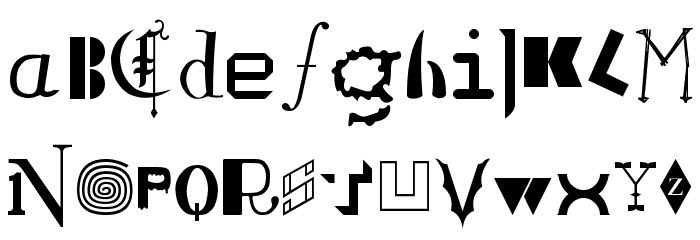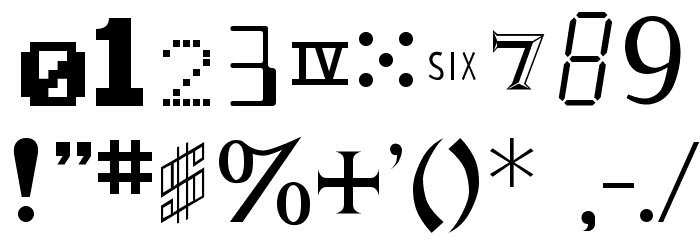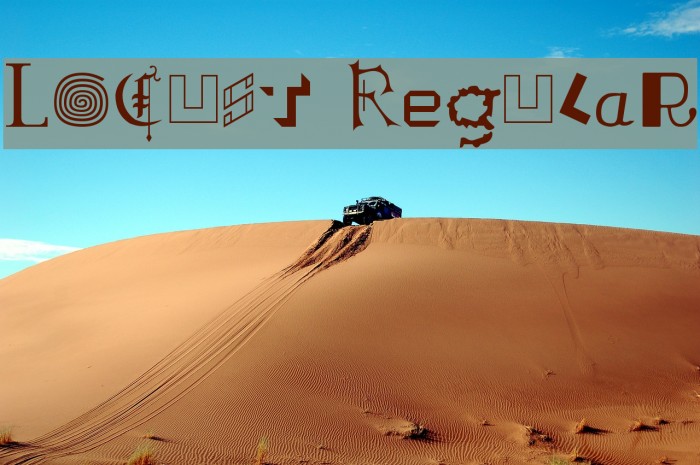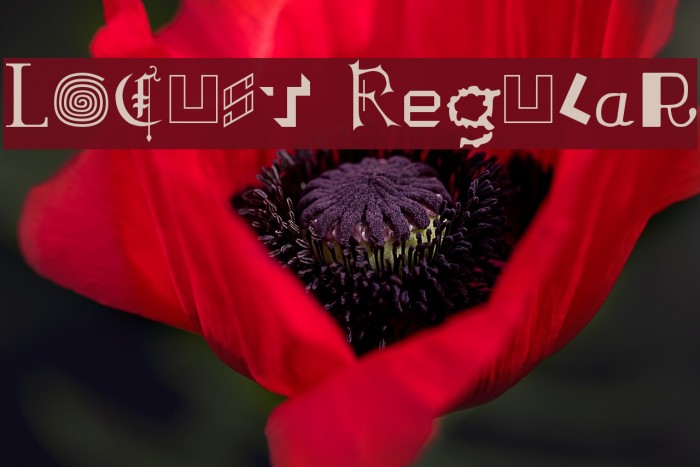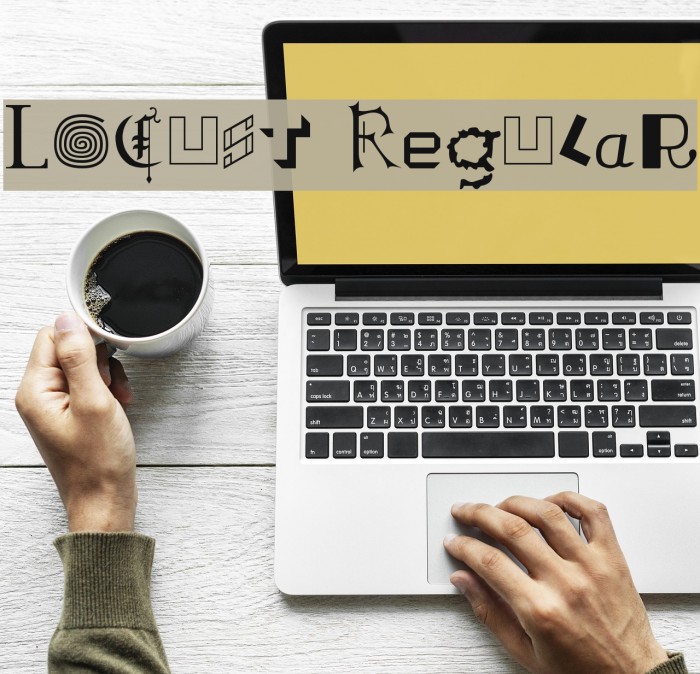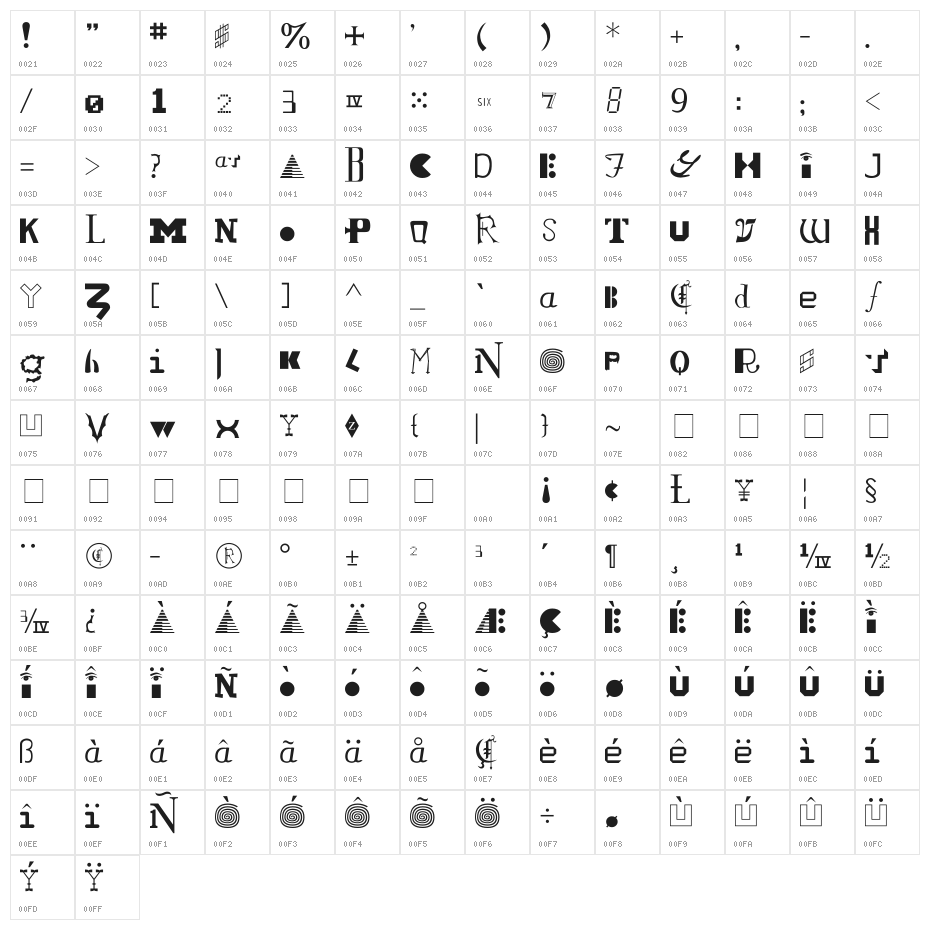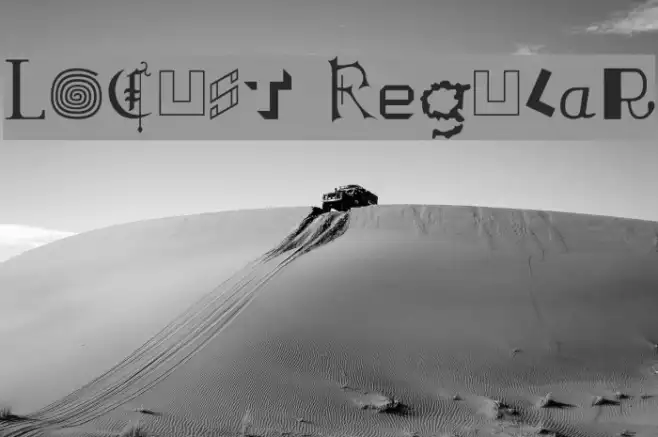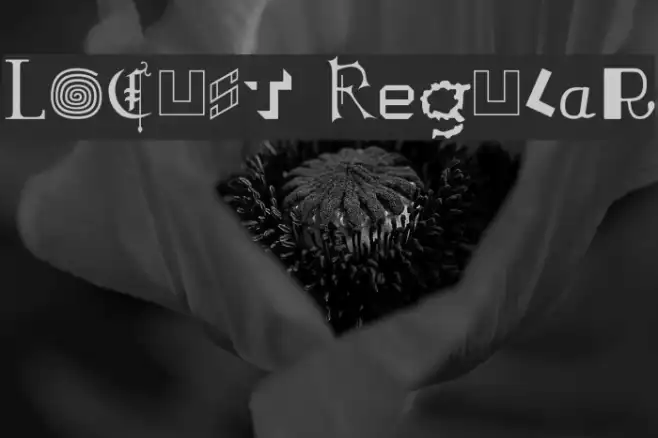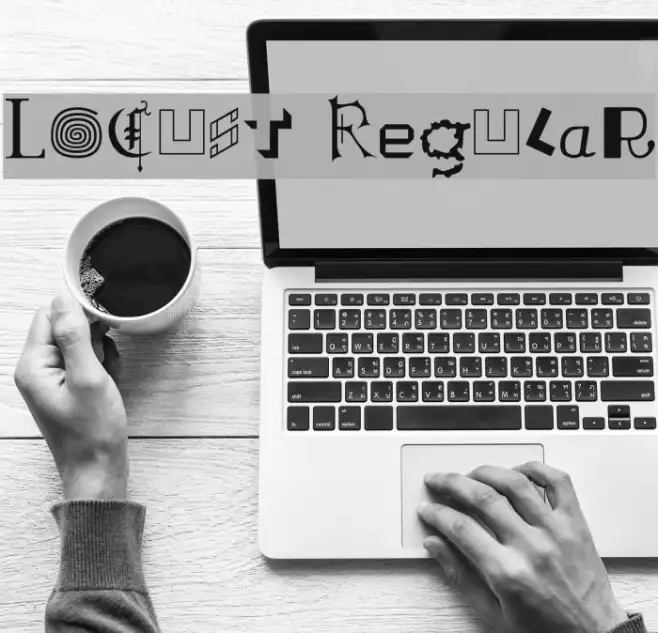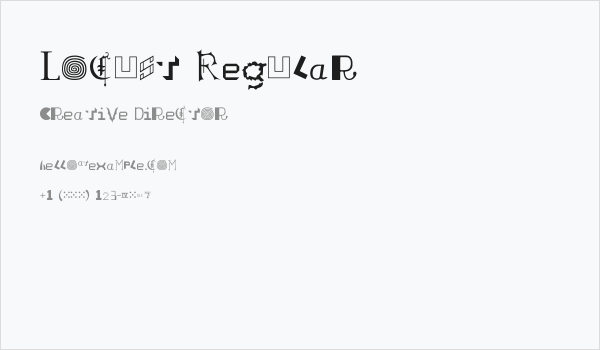
Locust Regular Font
This font is a highly decorative and eclectic typeface, featuring a diverse range of styles within each character. Each letter is uniquely designed, incorporating elements such as stripes, dots, and abstract shapes, making it visually striking and unconventional. The uppercase letters exhibit a mix of bold, geometric forms and intricate, ornamental details. The lowercase letters continue this theme with a playful and artistic flair. Numbers and special characters are equally varied, with some characters resembling digital or pixelated styles, while others have a more classic or whimsical appearance. This font is ideal for creative projects that require a bold and artistic statement.
An eclectic and decorative typeface with uniquely styled characters.
- Proposed Projects: Ideal for artistic posters, album covers, creative branding, and unique invitations.